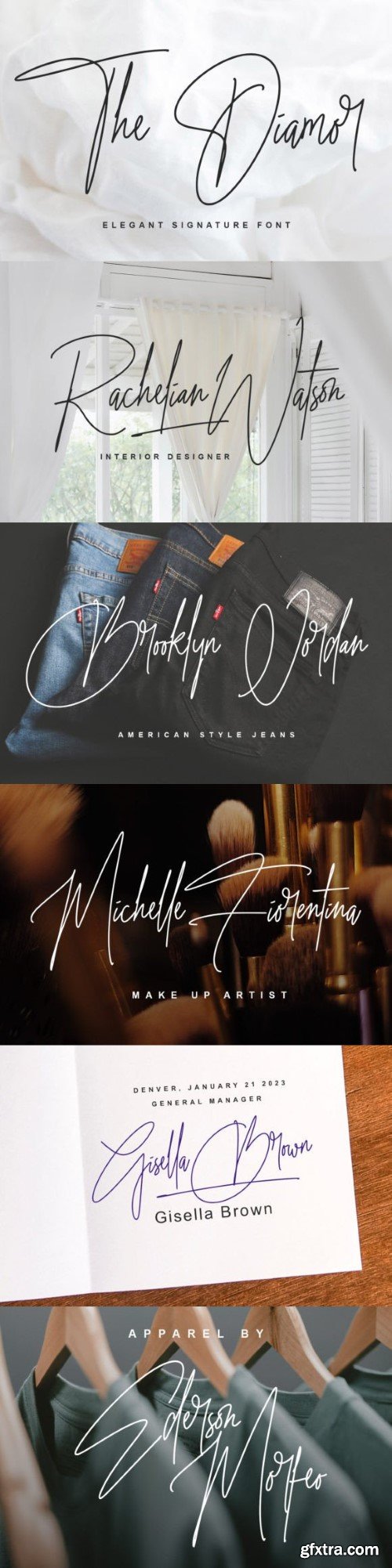
THE DIAMOR
– elegant signature font-
THE DIAMOR is fancy signature font.
It is great for signature, logotype, branding, t-shirt designs, tote bag designs, cards, banners, social media, and more.